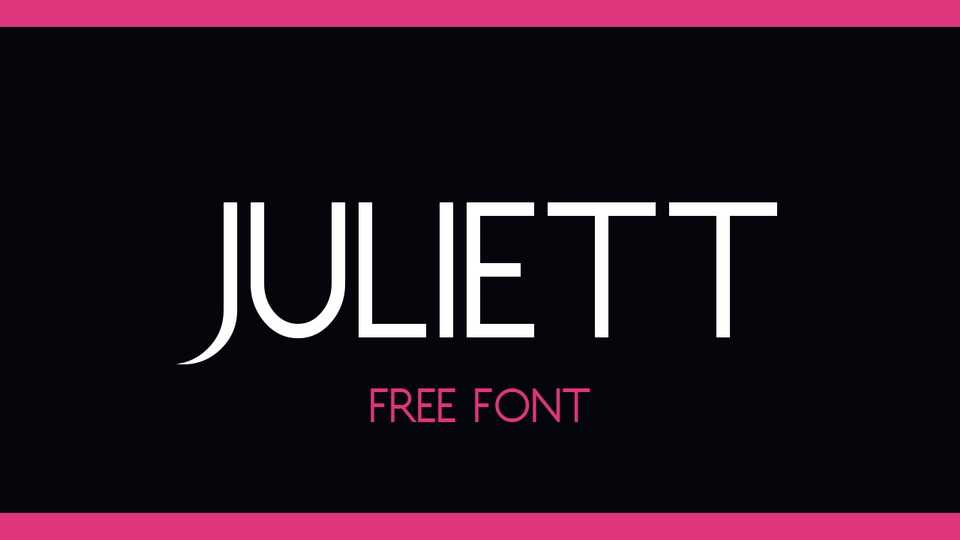
Download Juliett font, a sans serif typeface that seamlessly blends modern sophistication with timeless appeal. Juliett font is perfect for projects that demand a contemporary aesthetic with a touch of understated refinement.